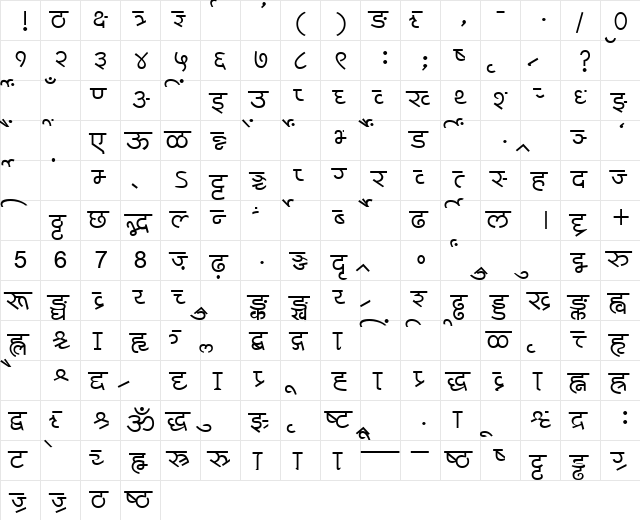
LscapeRegDevPooja Normal Font Preview
LscapeRegDevPooja Normal
LscapeRegDevPooja Normal Font Details
Design Context for LscapeRegDevPooja Typeface
LscapeRegDevPooja takes a measured approach to typography — its balanced proportions and neutral character make it a reliable workhorse for both digital and print work.